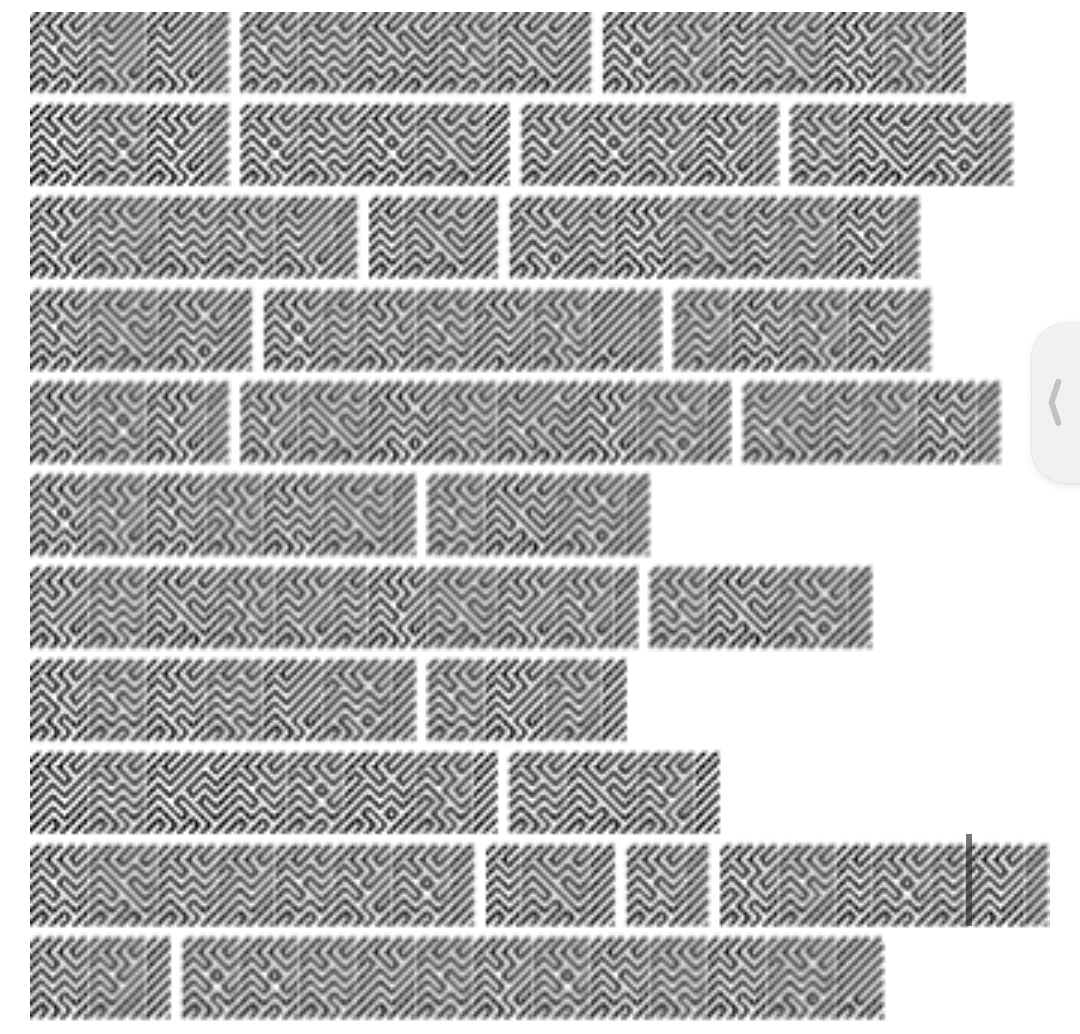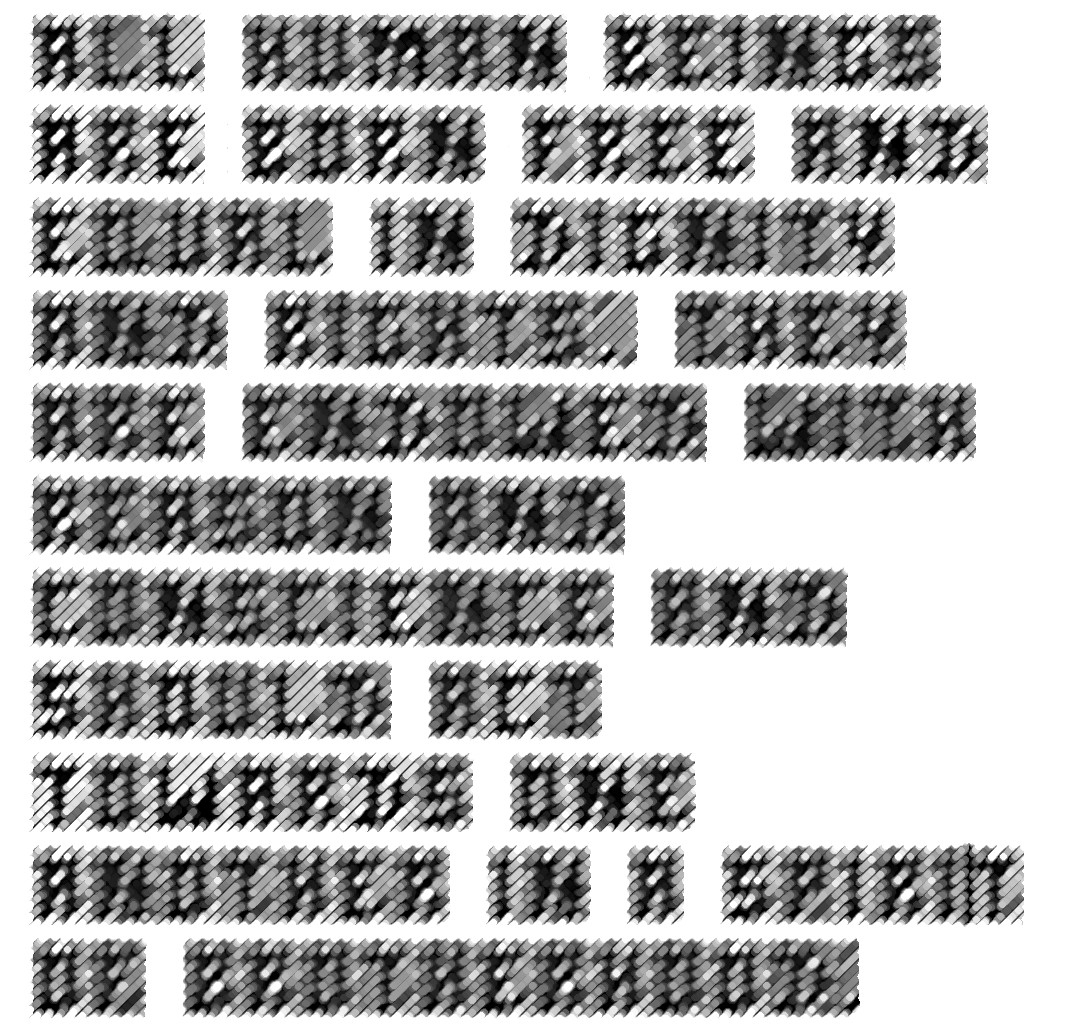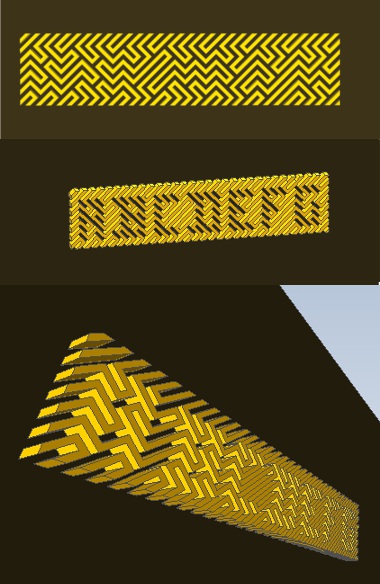
If you stare at this long enough it goes all 3D.
This is awesome. I spent several minutes going crazy trying to see the letters. :)
My font is different. Mine is reduced. I'm sure that someone else invented a similar font once ;)
This is sooooo confusing...
[ __ ]... What the hell?
They didn't teach me this!
Due to the blurry image and gaps between the characters, it was difficult to read, without using some tricks with blur and sharpening.